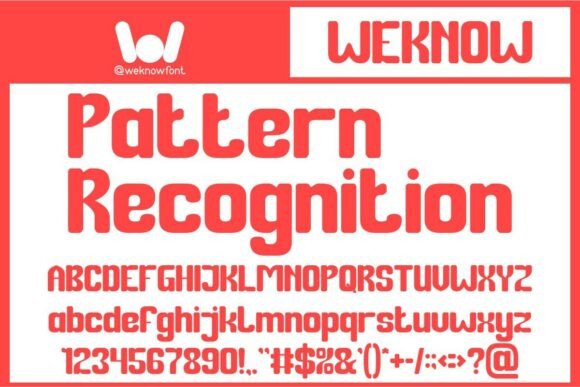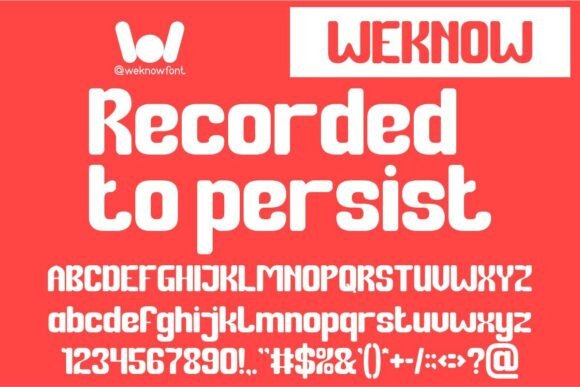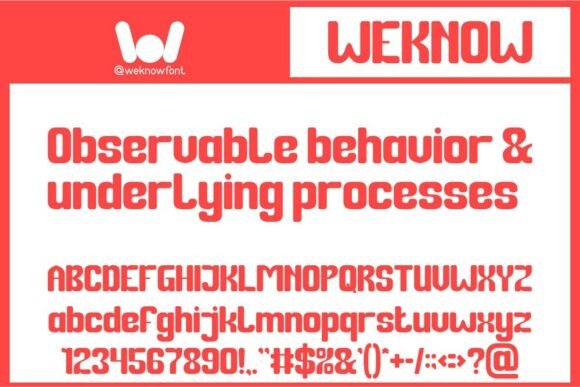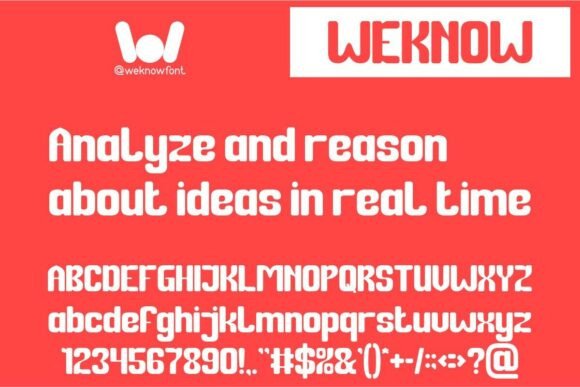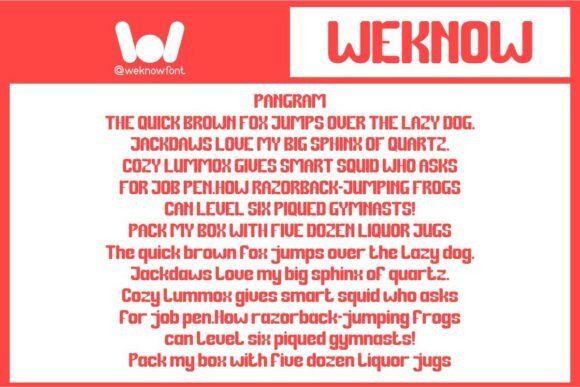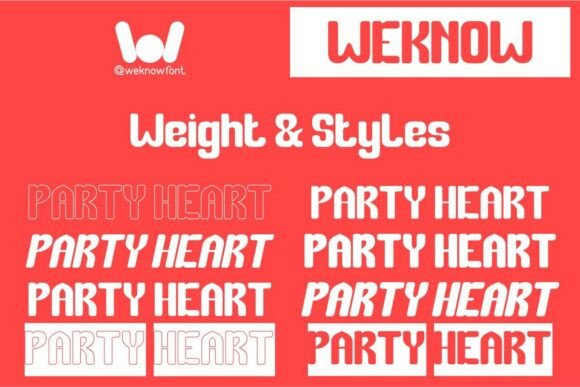
Introduction to Party Heart Font
Remember that moment when you’re working on a creative project, and you’re stuck on finding the perfect font to give it that extra oomph? The one that elevates your design from meh to mesmerizing? That’s where the Party Heart Font comes in – a game-changer for designers looking to add a touch of modern flair to their work.
As a versatile sans serif font, Party Heart Font is more than just a pretty face. Its unique blend of rounded techno contour and subtle nuances makes it a design resource that’s both high-quality and easy to use. Whether you’re working on a fashion-forward apparel design, a captivating poster, or a dynamic website, this font is sure to bring a cool, modern charm to your digital journey.
Key Features of Party Heart Font
- High-quality design resource with a fun and playful aesthetic, perfect for creative projects.
- Features a transparent background, allowing for easy customization and versatility in design applications.
- Available in a range of sizes, including small caps, uppercase, and lowercase letters, to suit various design needs.
- Unique characteristics include swash and ligature options, adding a touch of personality to your creative project.
Honest Review: Party Heart Font
I recently stumbled upon the Party Heart Font, and I’m excited to share my thoughts on this design resource. As a designer, I’m always on the lookout for high-quality fonts that can elevate my creative projects. The Party Heart Font certainly delivers.
- ✨ High-quality design: The font is well-designed, with a clear and modern aesthetic.
- ✨ Transparent background: The transparent background allows for easy customization and versatility in design projects.
However, I do have a few concerns:
- ⚠️ Limited character set: The font only includes a limited character set, which may not be suitable for all design projects.
- ⚠️ Not ideal for small text: The font may not be the best choice for small text, as it can become difficult to read.
Overall, I’m impressed with the Party Heart Font. While it may have some limitations, its high-quality design and free download make it a valuable resource for designers. I’d definitely consider using it in my next creative project.
Common Use Cases for the Party Heart Font
The Party Heart Font is perfect for use in party invitations, social media graphics, and other creative projects that require a fun and playful touch. Its high-quality design and transparent background make it an excellent choice for any design project.
Yes, the Party Heart Font comes with a transparent background, making it perfect for use on images, videos, or other design elements with a clear background. This feature allows for seamless integration with your design, giving you more creative freedom.